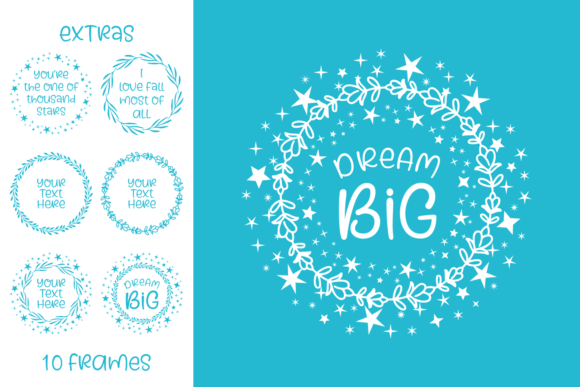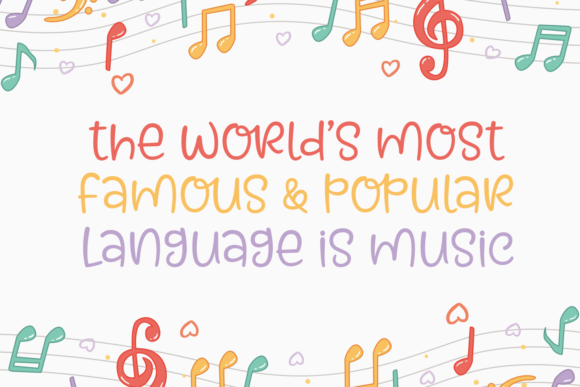
About Kaylonick Font
Kaylonick is a sweet, soft hand-lettered font.
The playful rounded characters make it the perfect font for creating stunning nursery art.
The Kaylonick typeface comes packed with 10 floral frames, that will allow you to add a decorative touch within seconds.